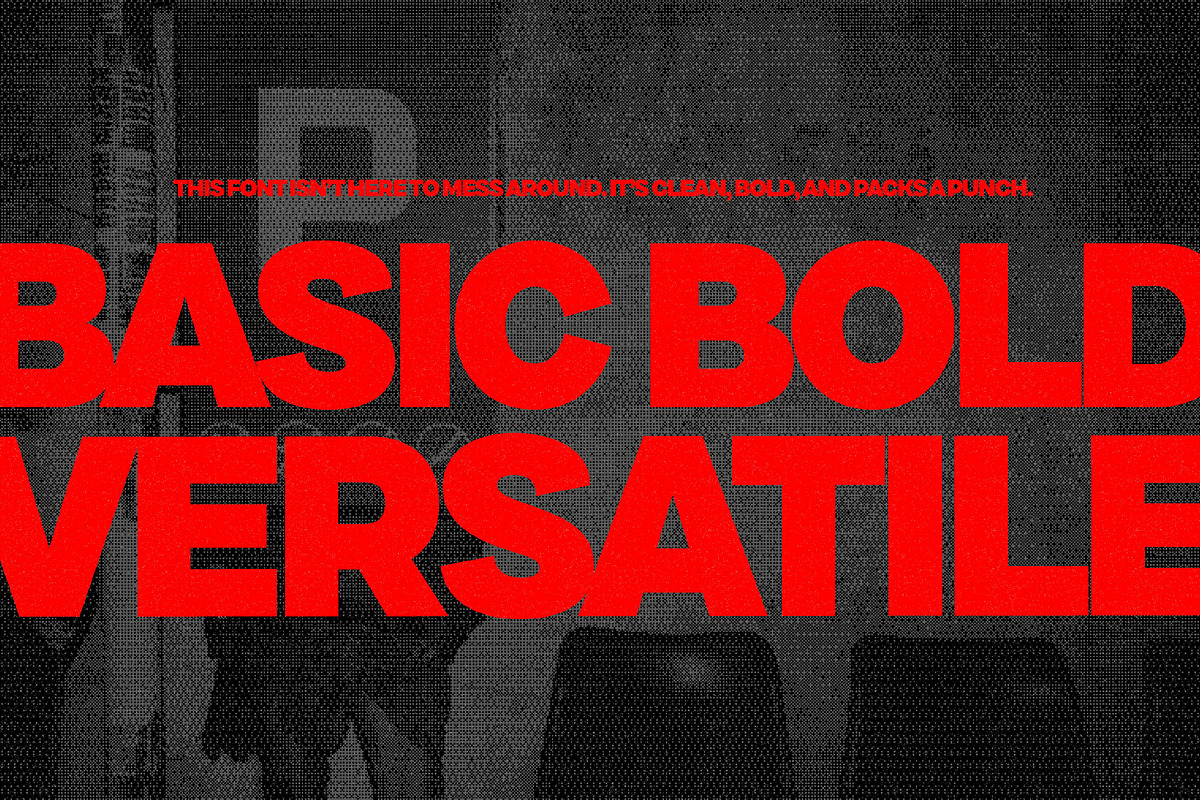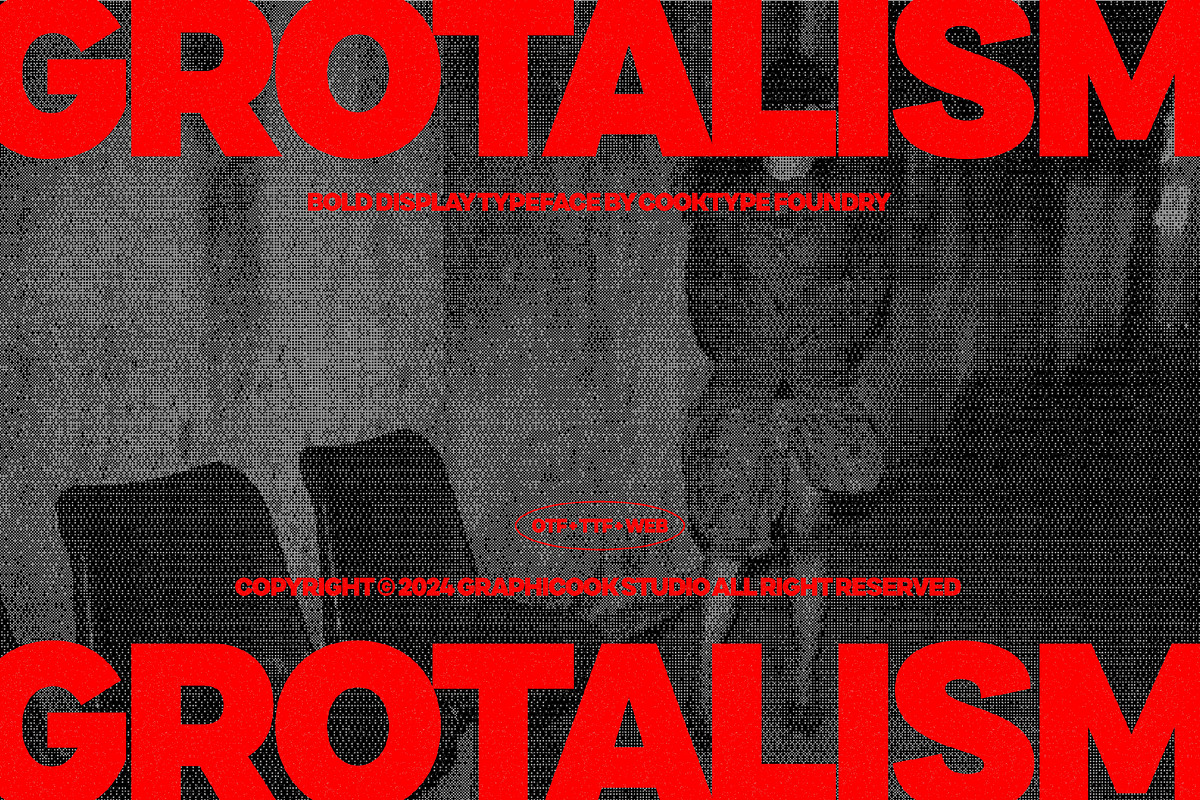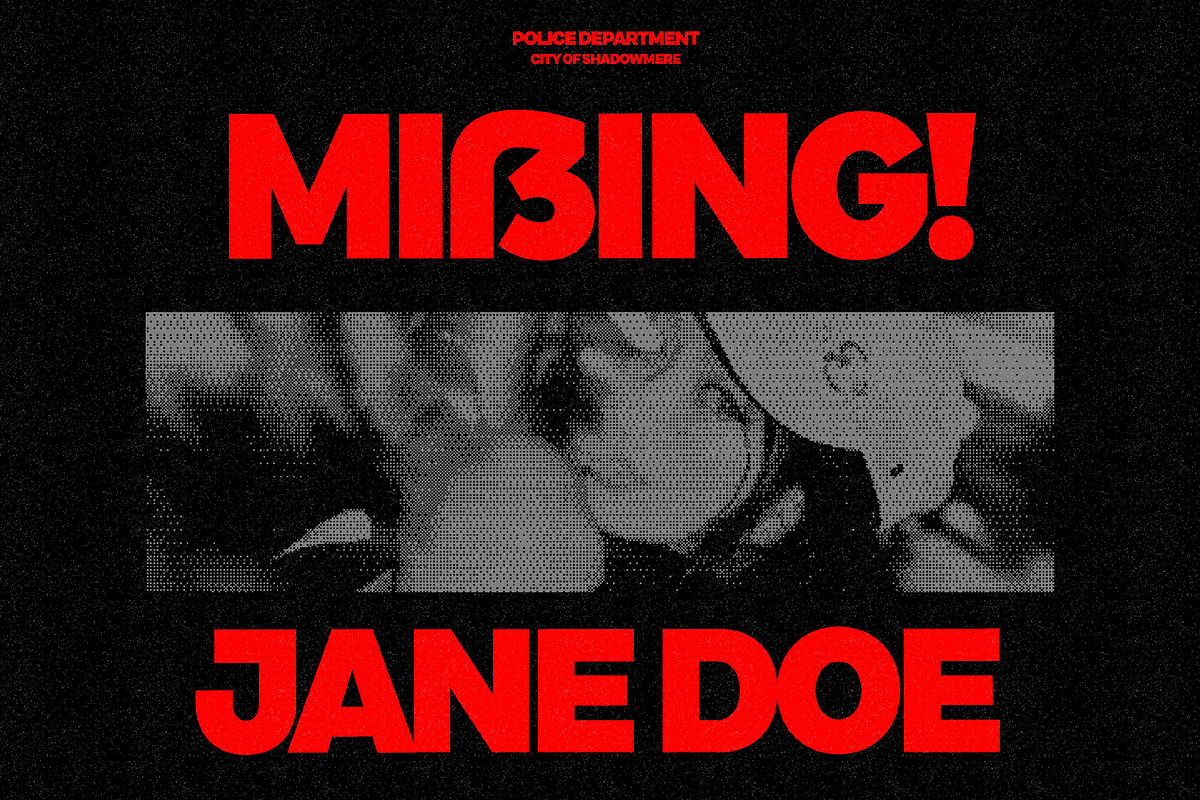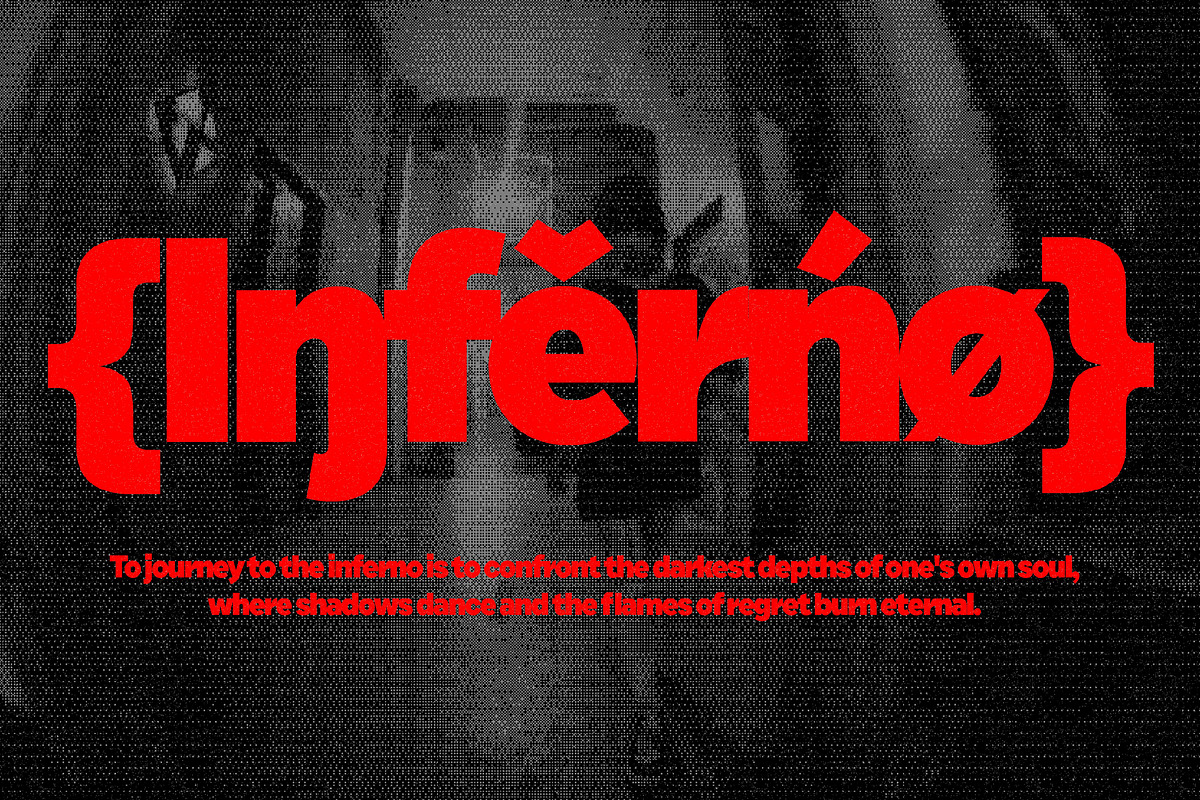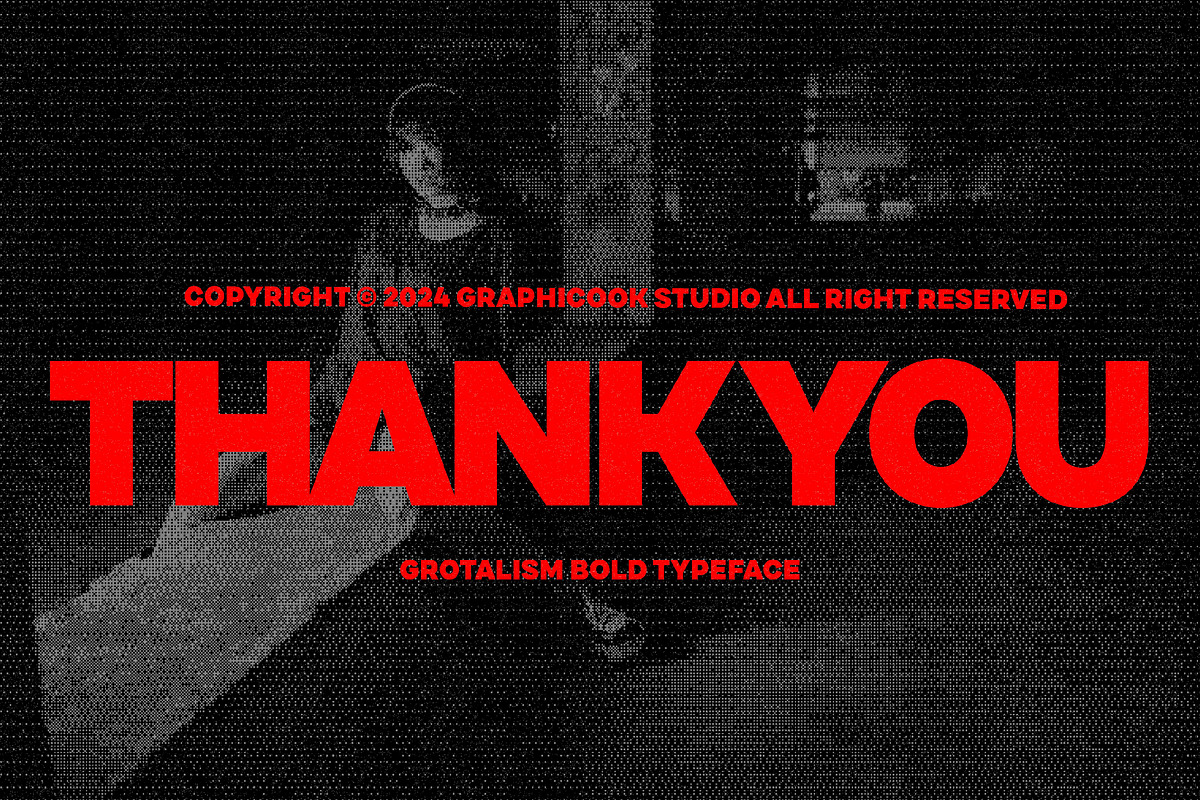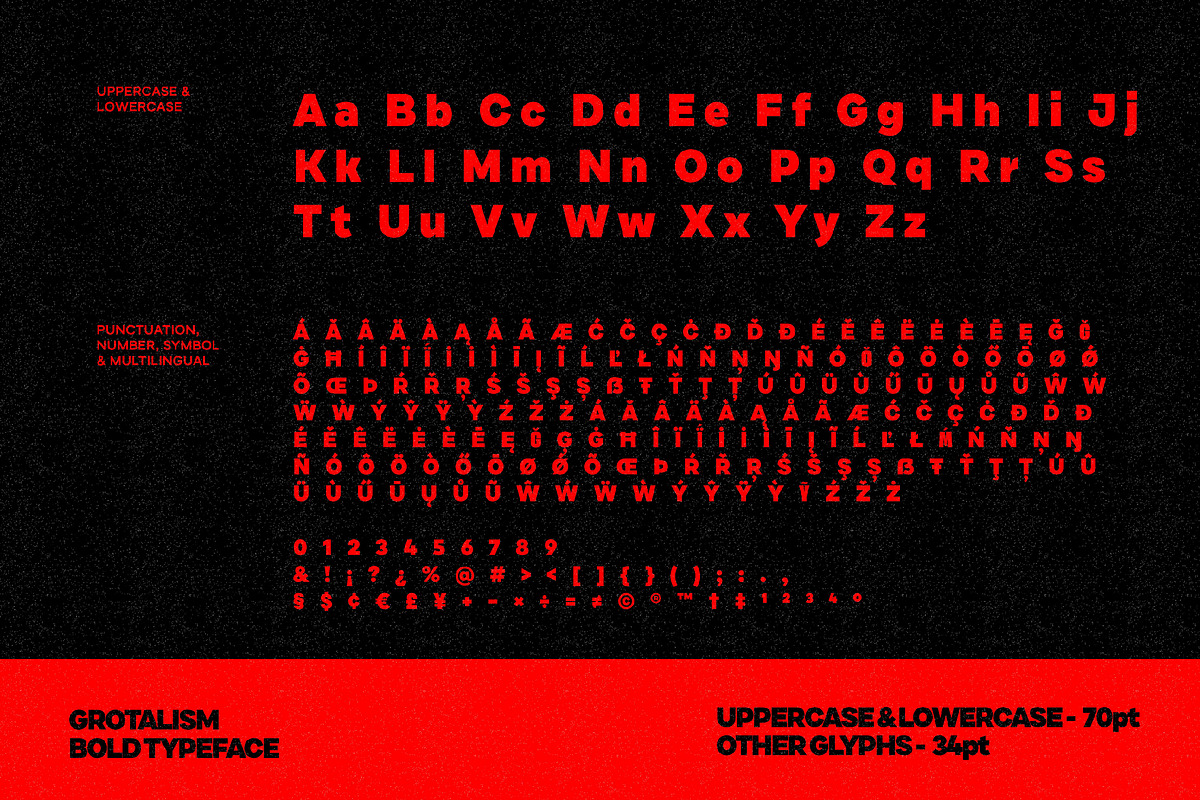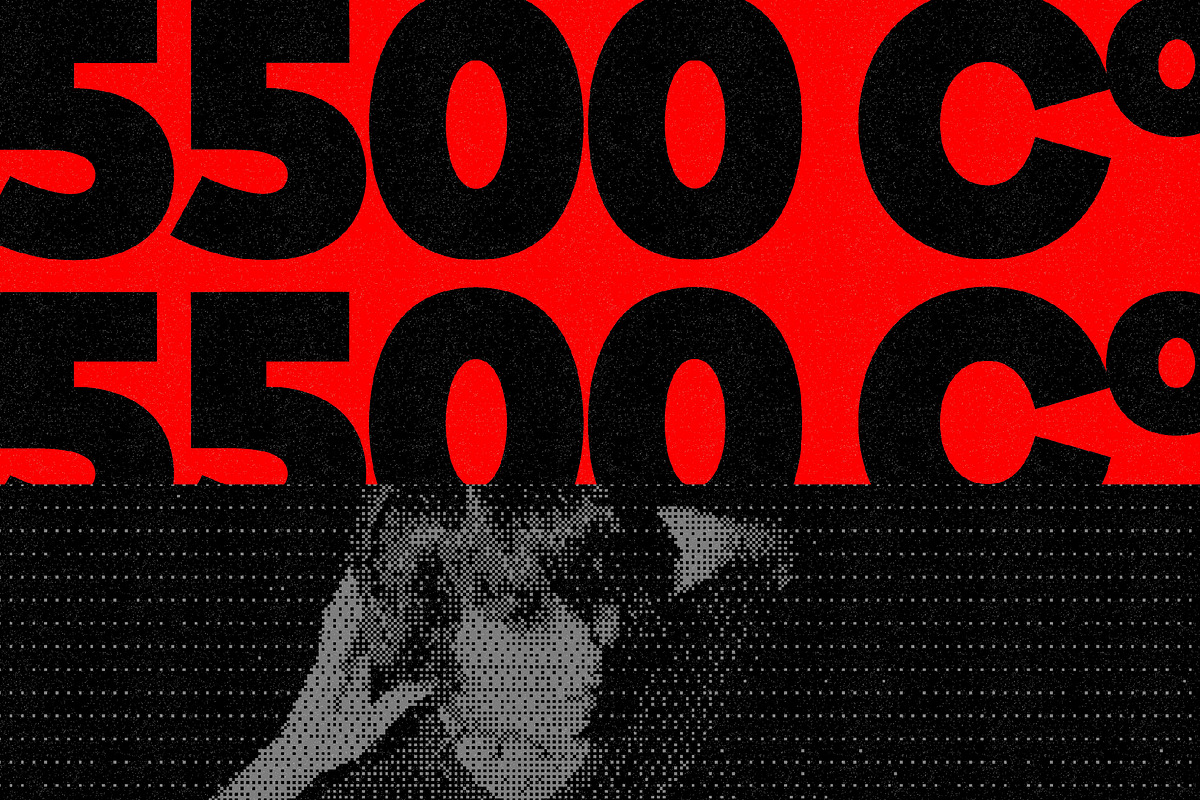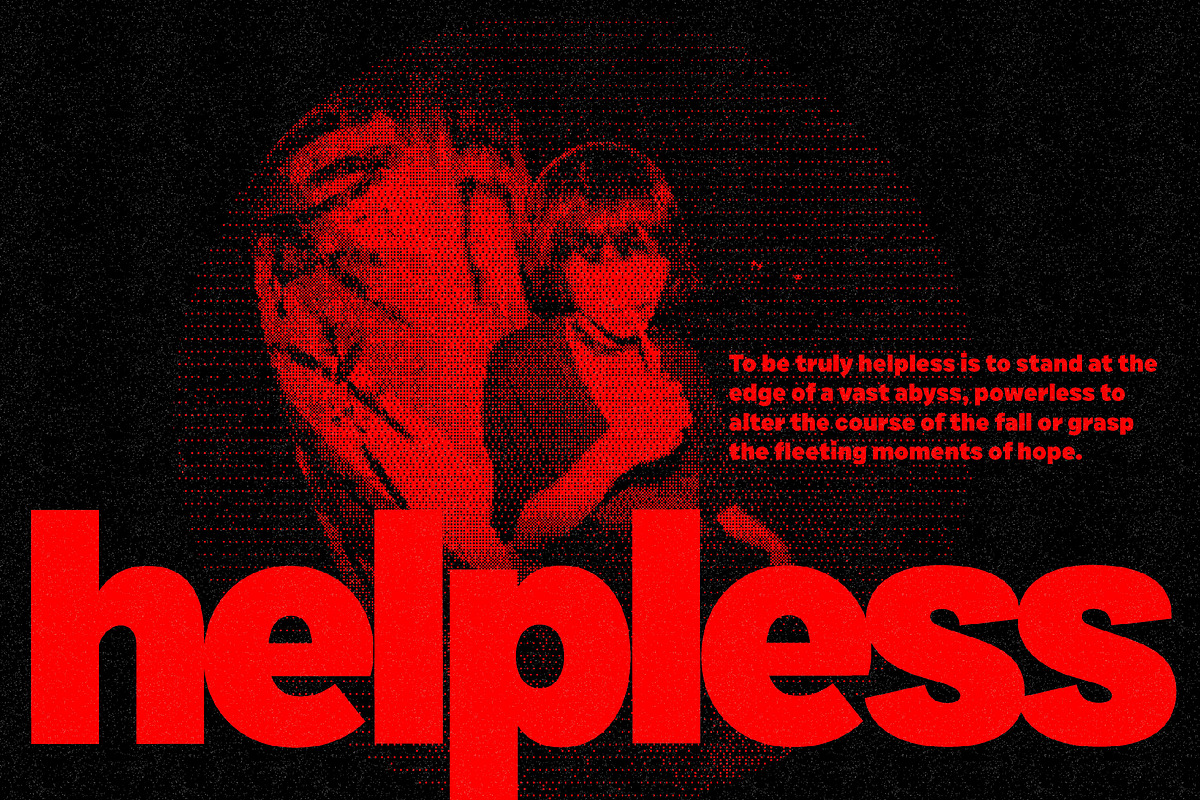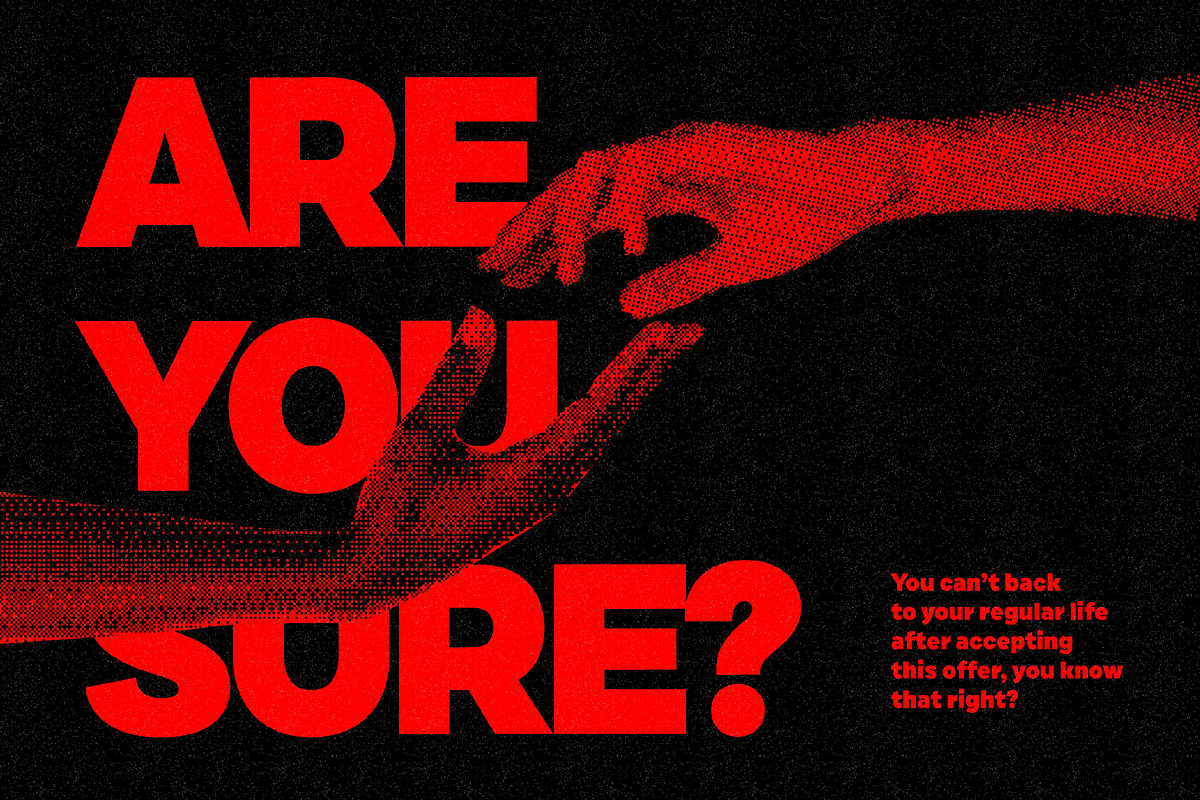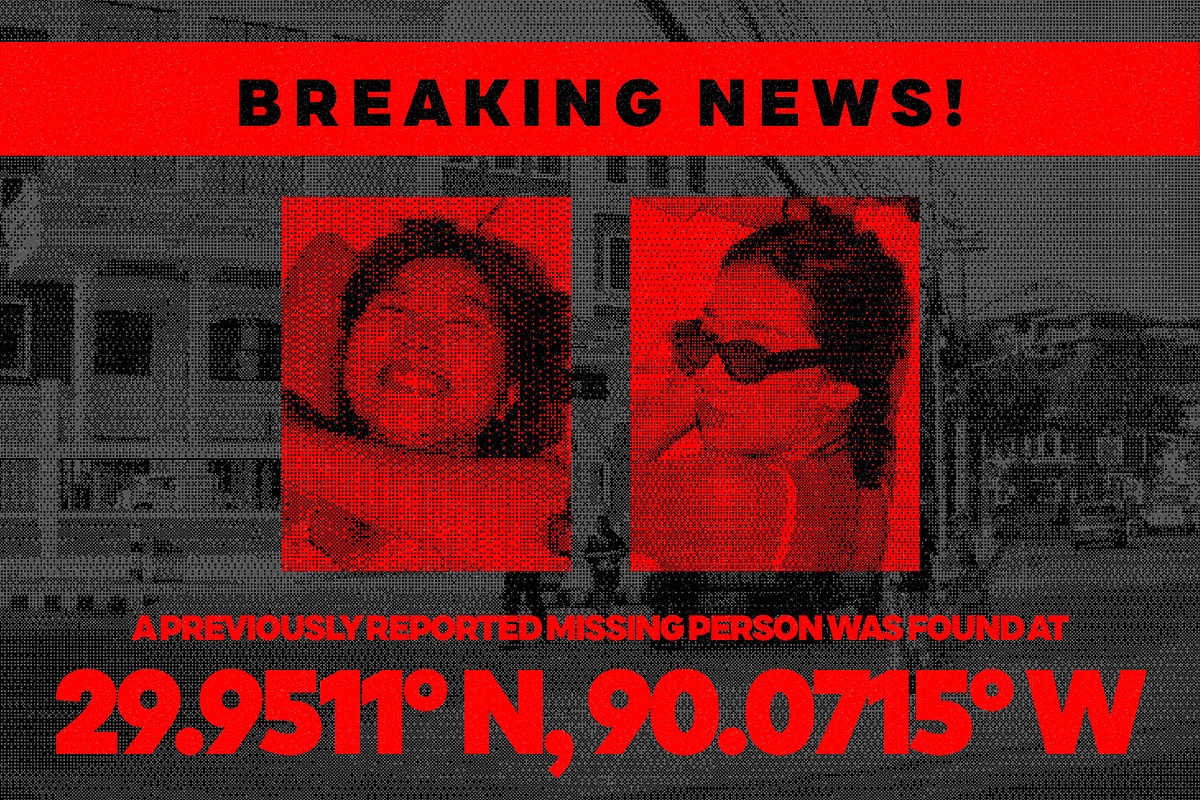
Grotalism
Grotalism is a mix of grotesque style and brutalism. This font is perfect for design projects that demand a powerful, timeless presence.
Grotalism is perfect for headlines, logotypes, magazines, packaging, quotes, movies, games, cover albums, book covers, and flyers, it's a perfect solution for creating eye-catching designs that stand out in any context.